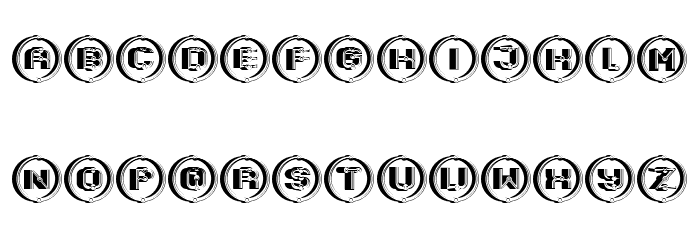
Granary Capitals Regular Font
This font features a bold, decorative style with each character enclosed in a circular border. The letters are uppercase and have a distinct, industrial feel, reminiscent of typewriter keys or vintage signage. The characters are evenly spaced within their circles, providing a uniform and structured appearance. The design incorporates a three-dimensional effect, giving depth and a shadow-like quality to each letter. This font is ideal for projects that require a strong visual impact and a touch of nostalgia.
A bold, decorative font with uppercase letters in circular borders, offering a vintage, industrial feel.
• Font: Granary Capitals Regular
• Proposed Projects: Ideal for vintage-themed posters, logos, branding materials, and signage that require a strong, eye-catching design.
• Category: Decorative/Display
• Bold: Yes
• Italic: No
• Weight: Bold
• Width: Normal
• Character Spacing: Normal
• Contrast: Medium
• Overall Style: Vintage
• Use Case: Logos, Headlines, Posters